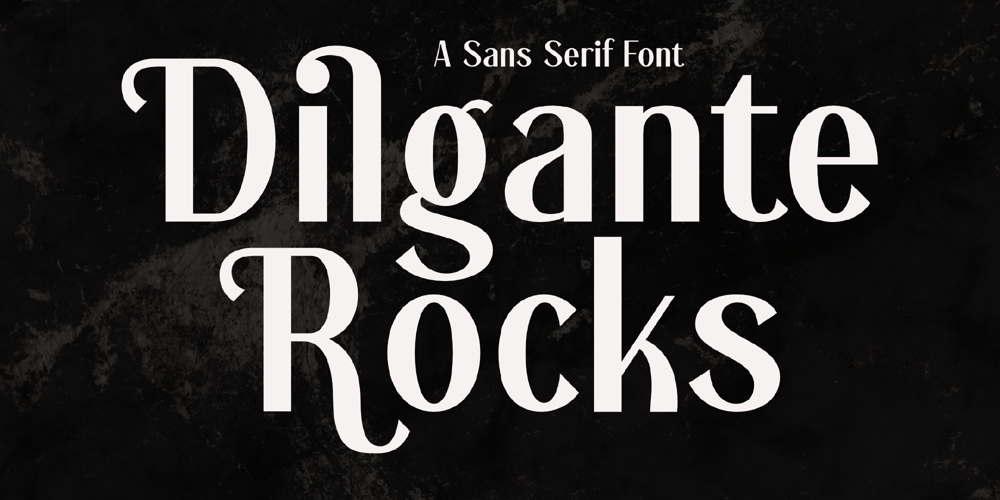
Dilgante Rocks Font Family was designed by Heru Utama Putra and published by Letterena Studios. Dilgante Rocks contains 2 styles and family package options. Dilgante Rocks is a modern and classic serif typeface that has its own unique style. It is perfect for an elegant & luxurious logo, book or movie title design, fashion brand, magazine, clothes, lettering, invitations and much more.